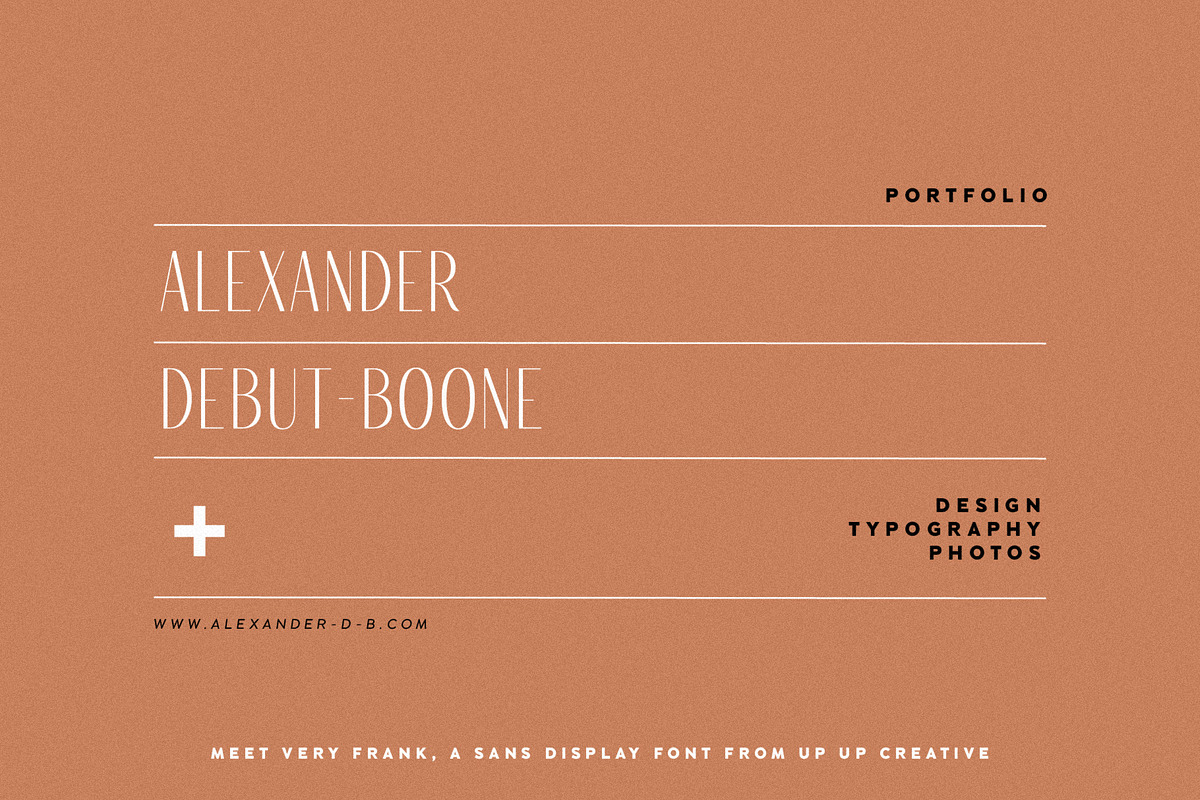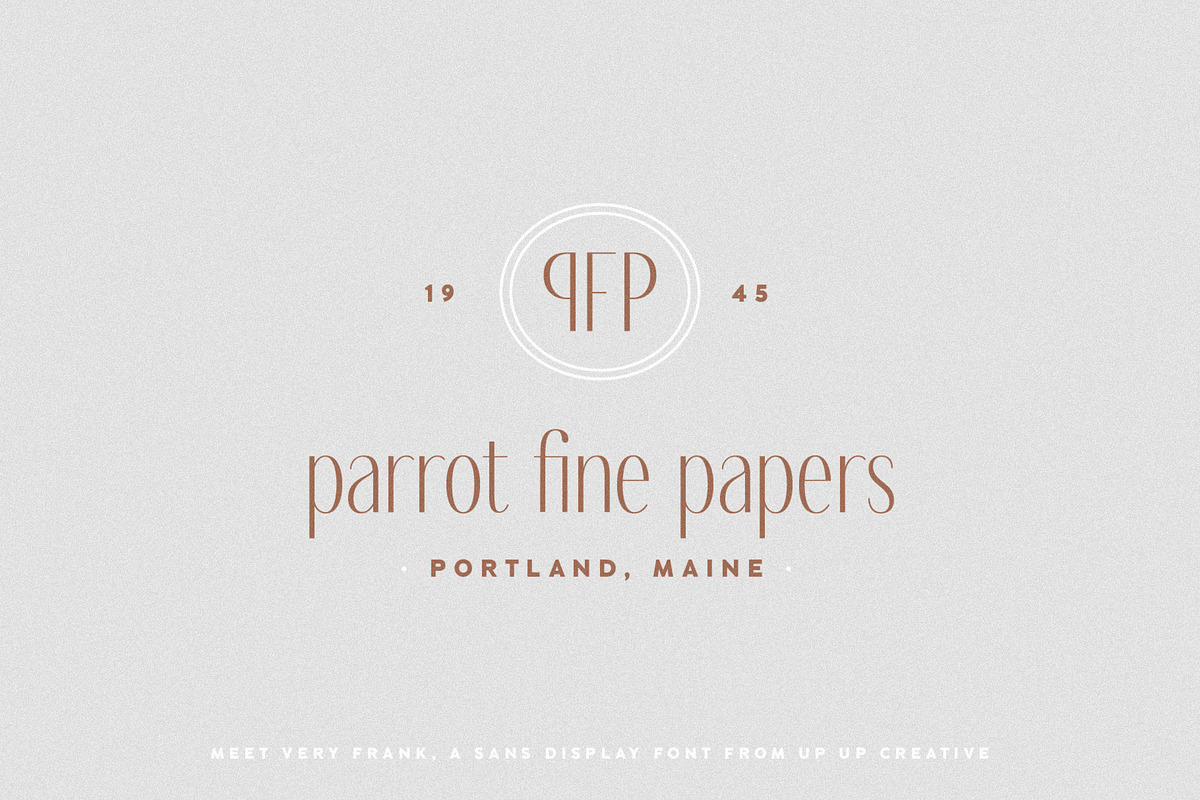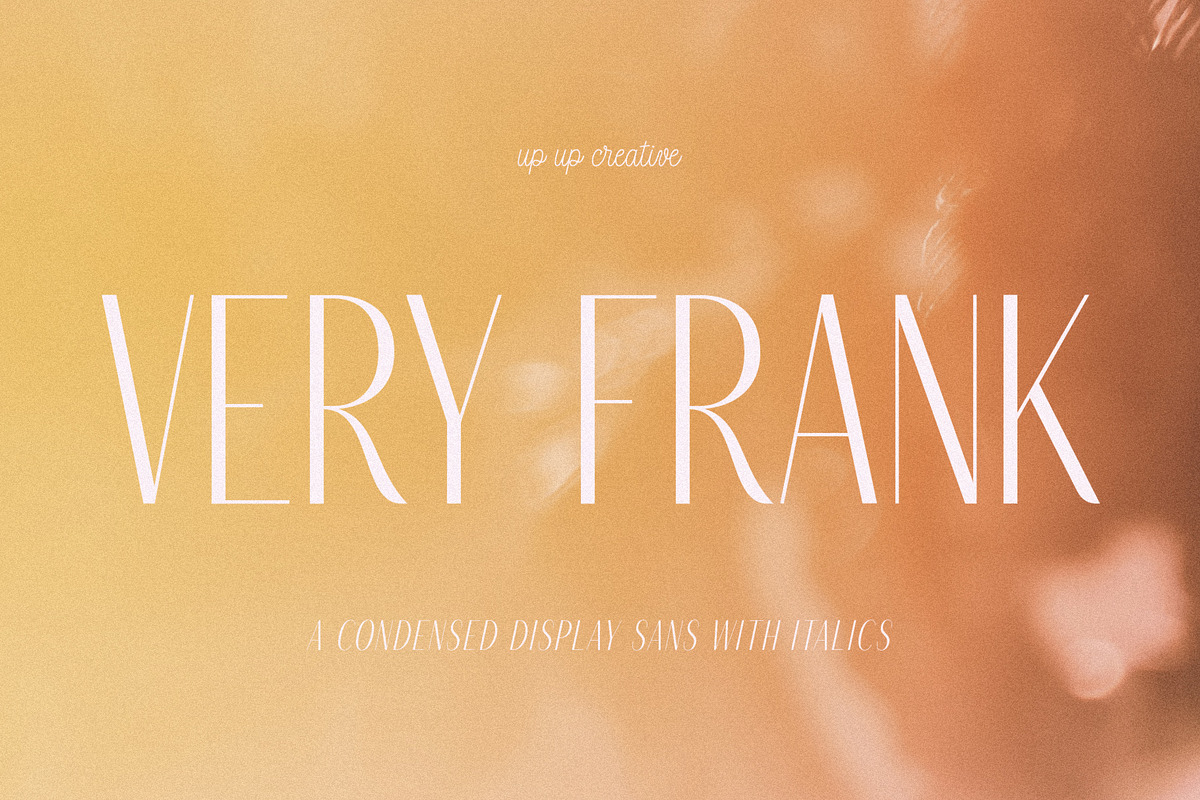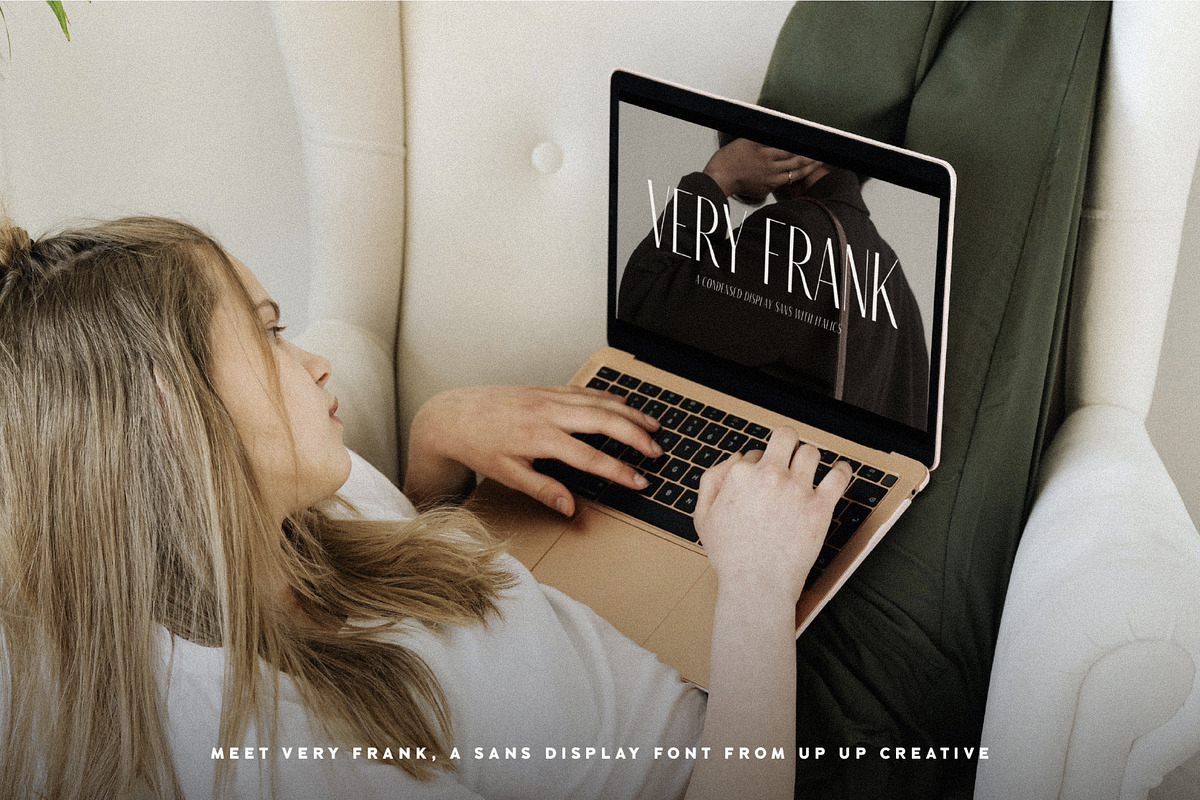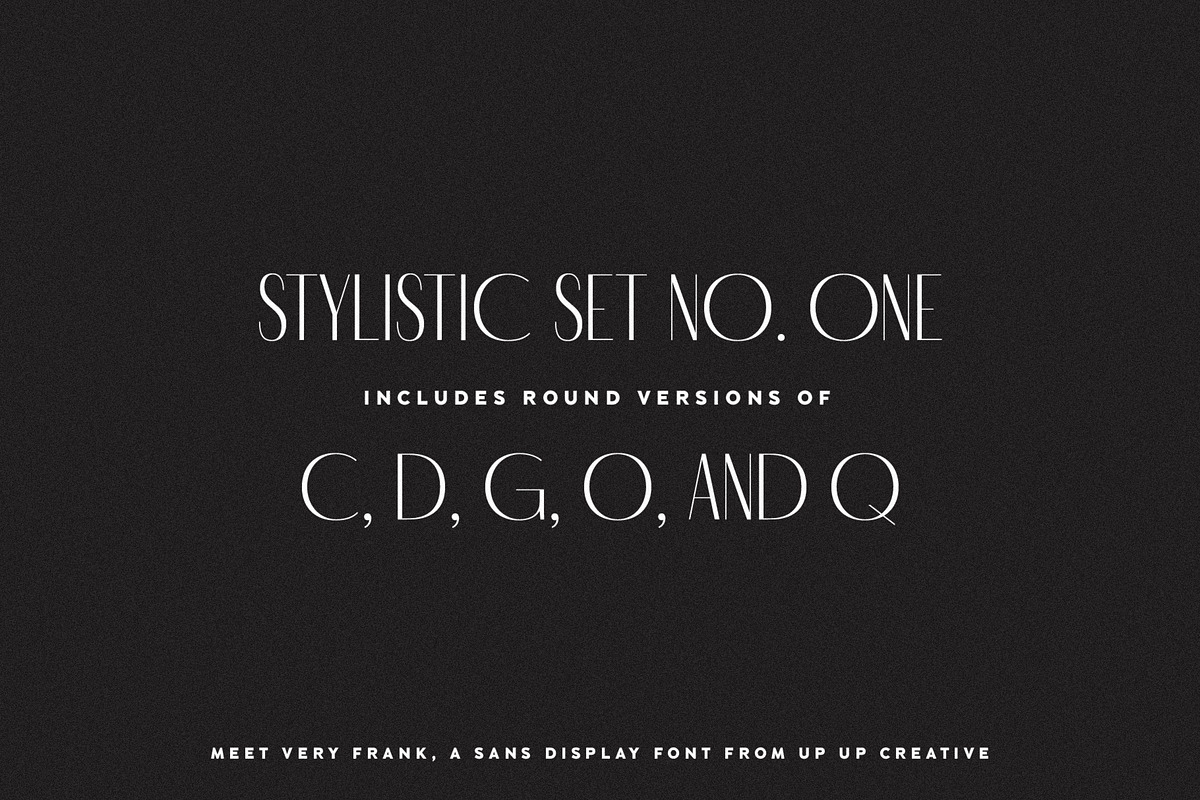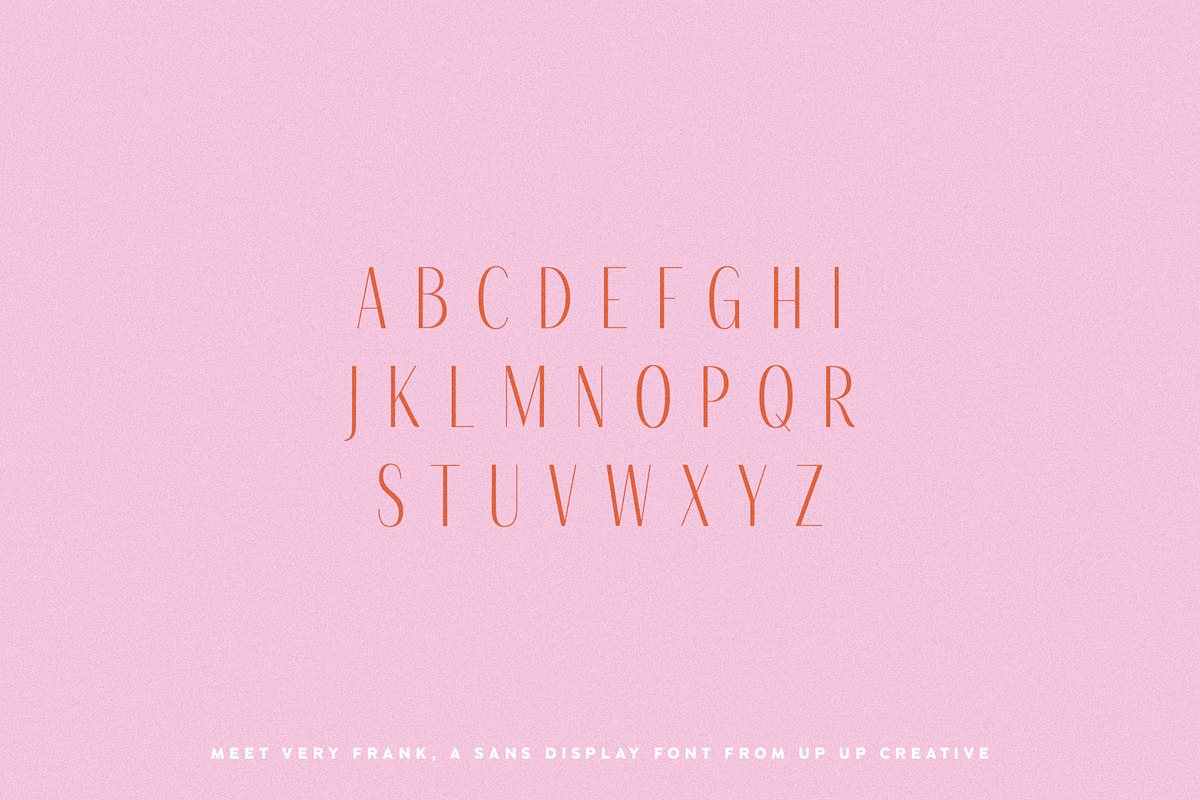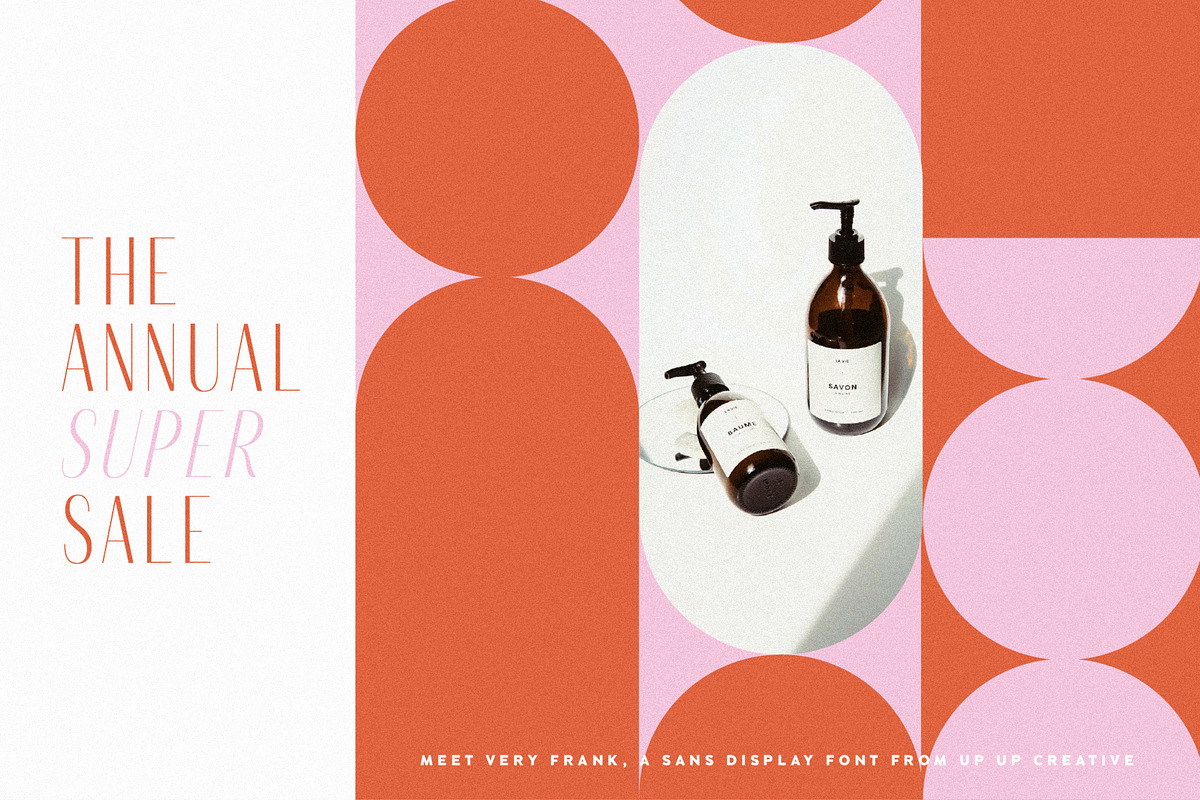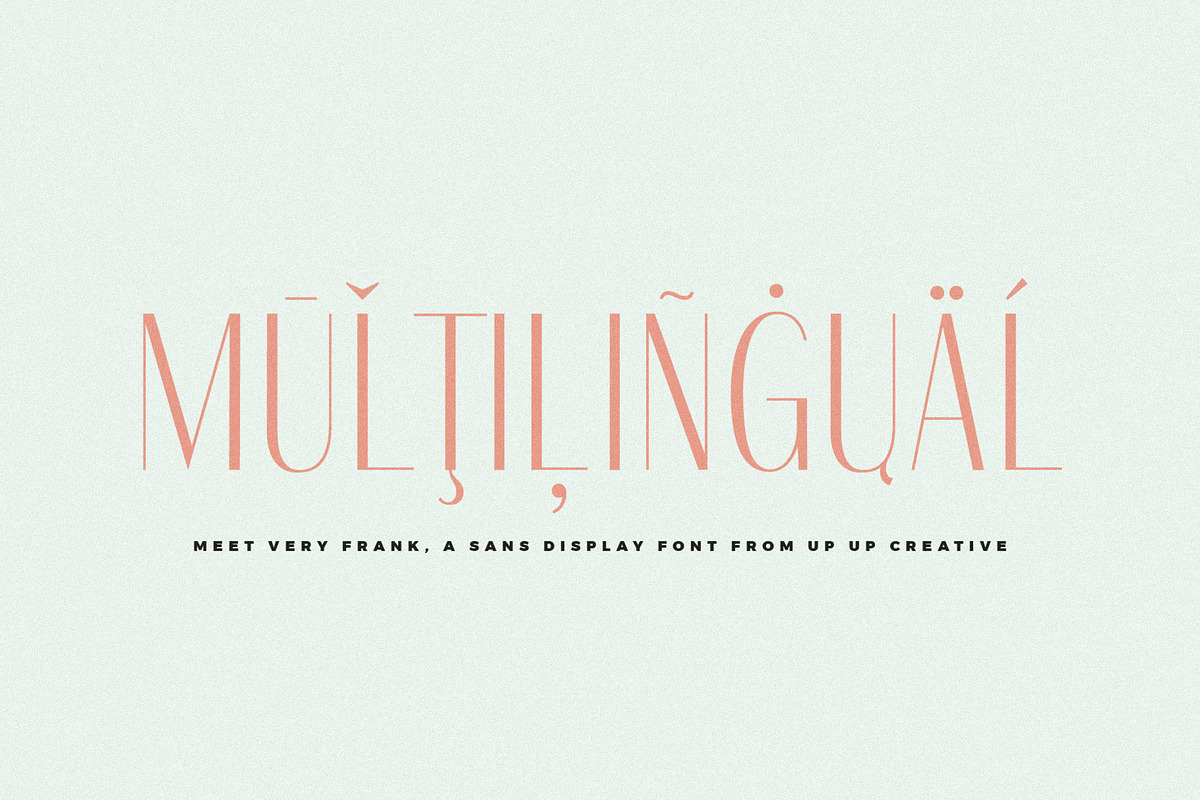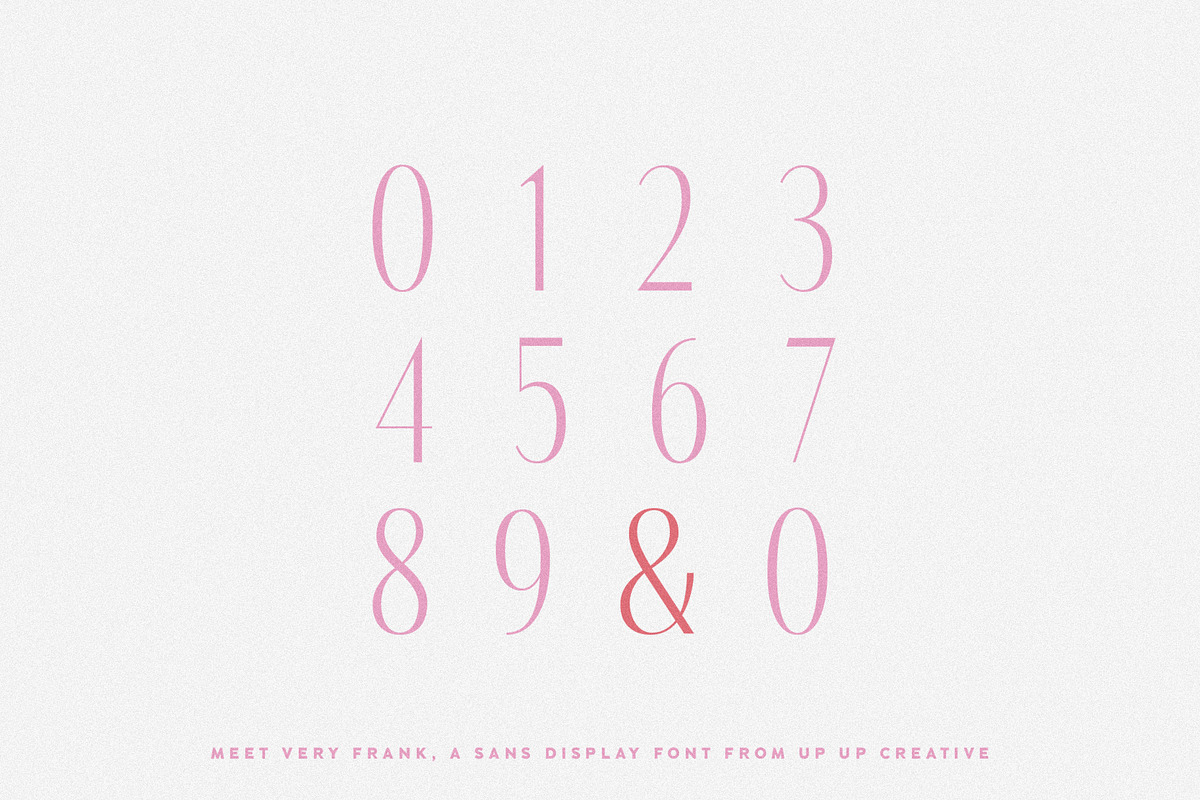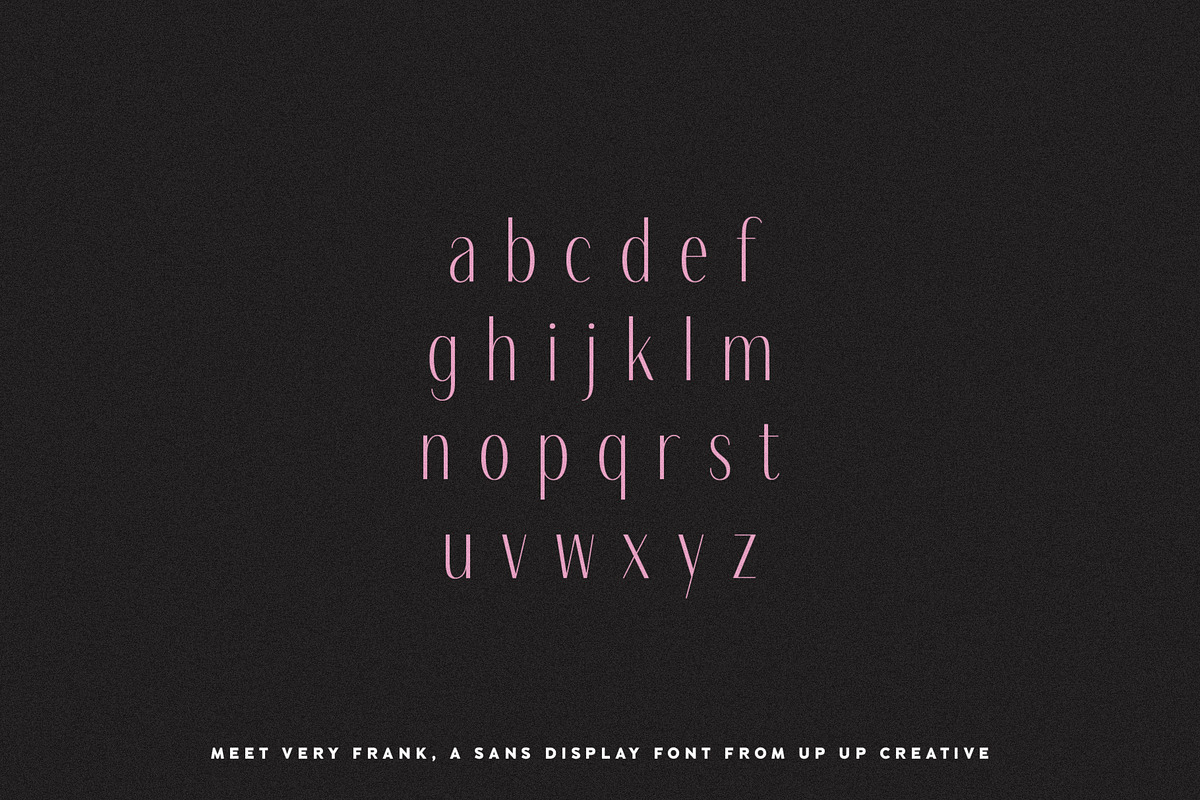
Very Frank, A Condensed Sans
Very Frank is a condensed sans serif display font (in regular and italic) with tall, straightforward lines and subtle curves to soften things up. It includes a ton of standard and discretionary ligatures and two stylistic sets to spice things up and add some fun. Very Frank is perfect for headlines, editorial design, monograms, branding, logos, poster design, and more.
Very Frank includes approximately 540 glyphs and more than 75 standard and discretionary ligatures. Additional OpenType features include character variants, stylistic sets, and multilingual support (including multiple currency symbols).